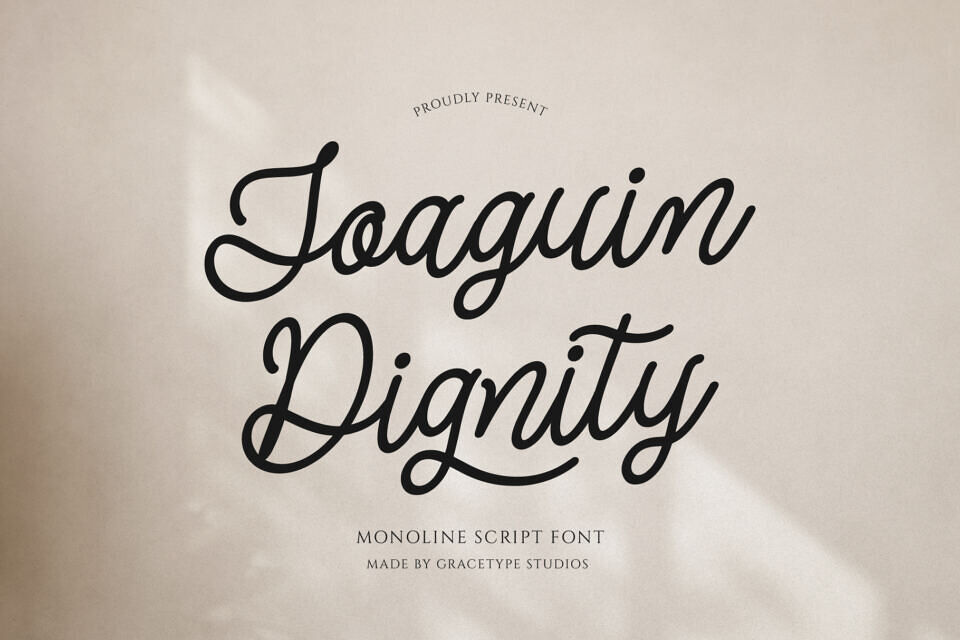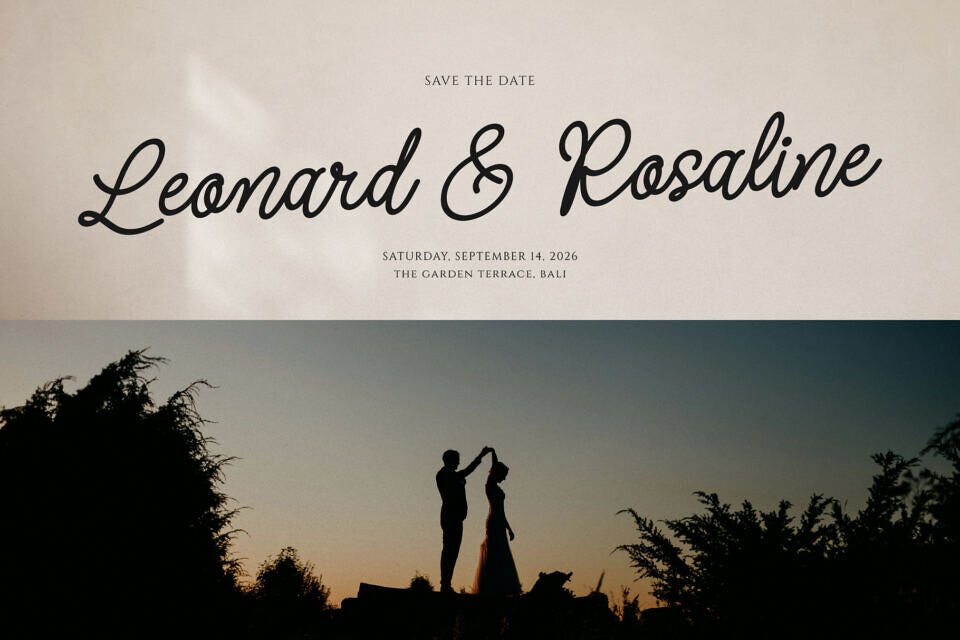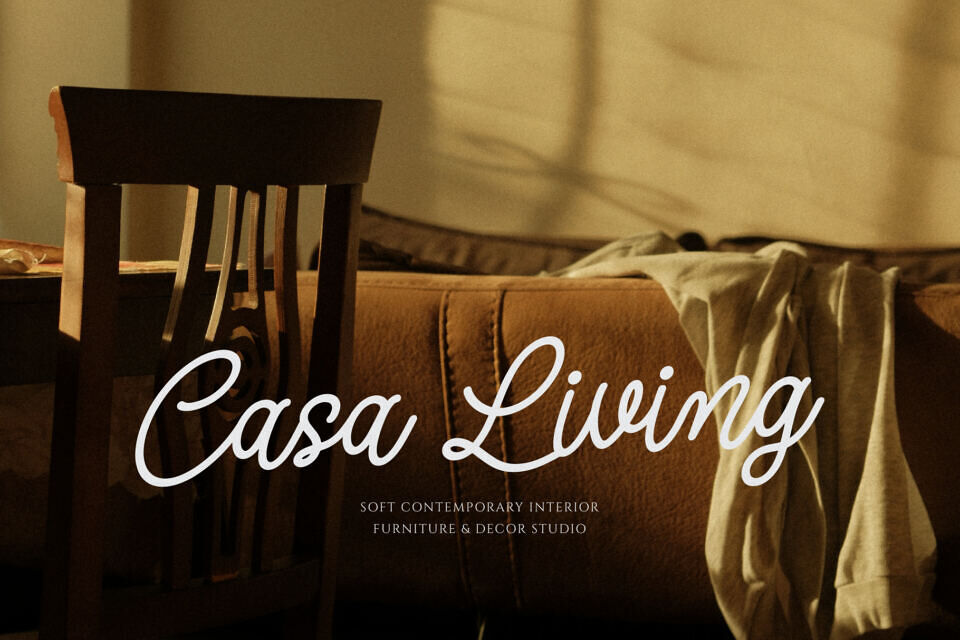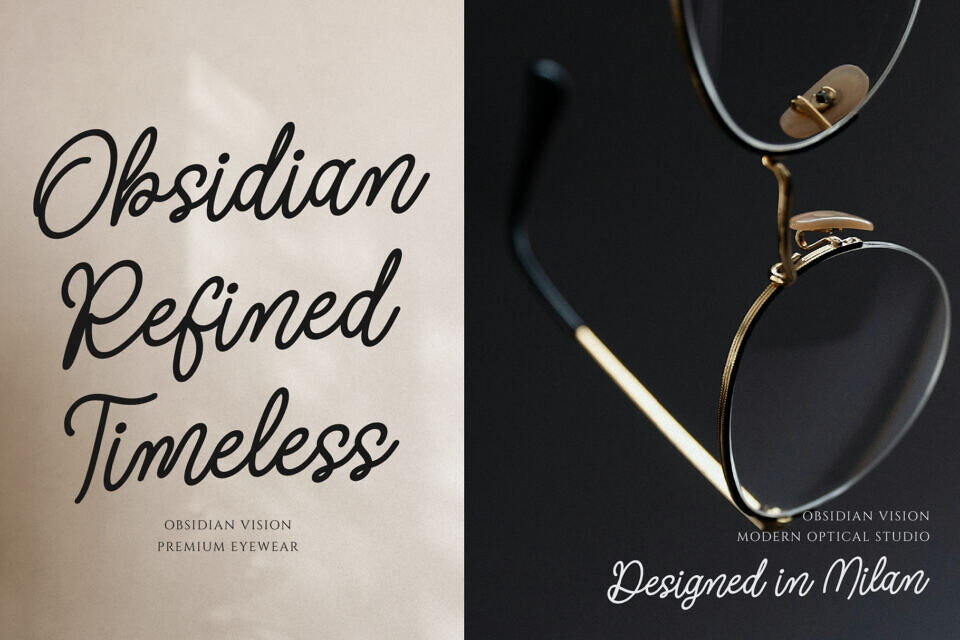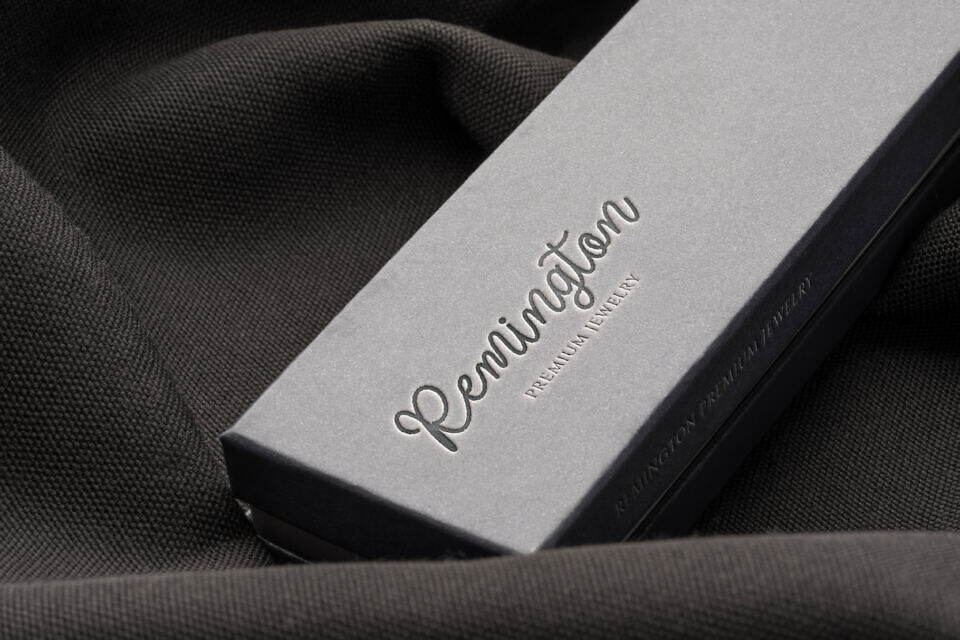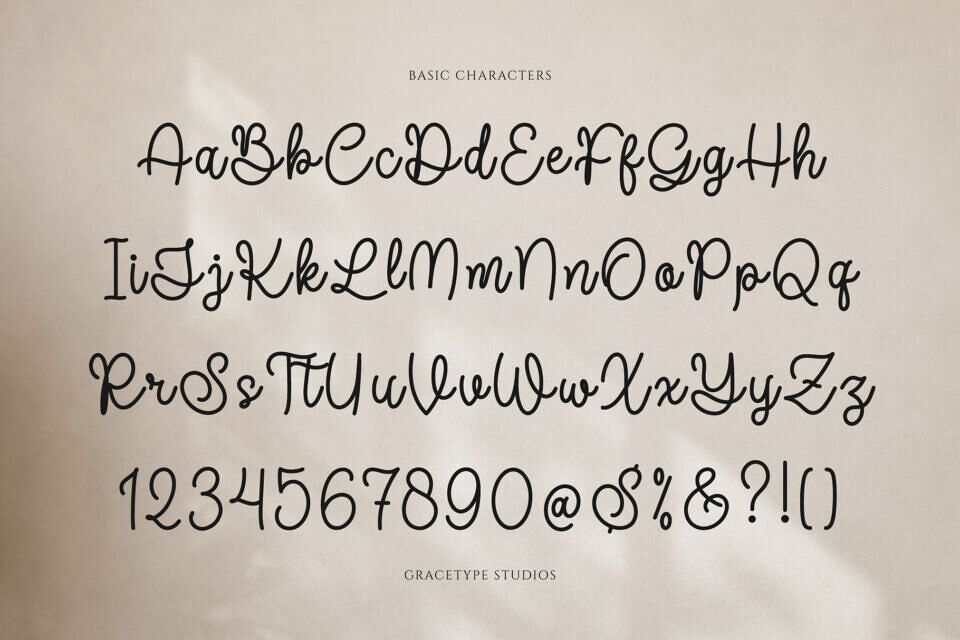
Joaguin Dignity Font
Embrace timeless warmth and sophisticated style with Joaquin Dignity, a refined monoline script font. This typeface features a smooth vertical anatomy constructed with uniform medium-weight line weights and a comfortable, relaxed cursive flow.
Joaquin Dignity is an exceptional match for upscale lifestyle boutique branding, cosmetic labels, custom greeting cards, and intimate editorial layout headers.